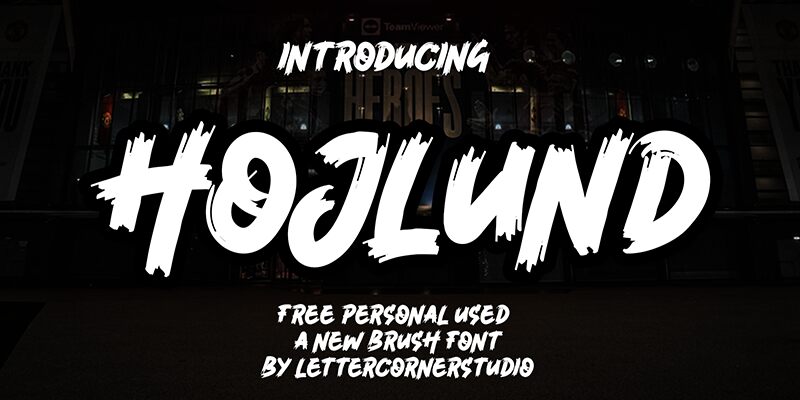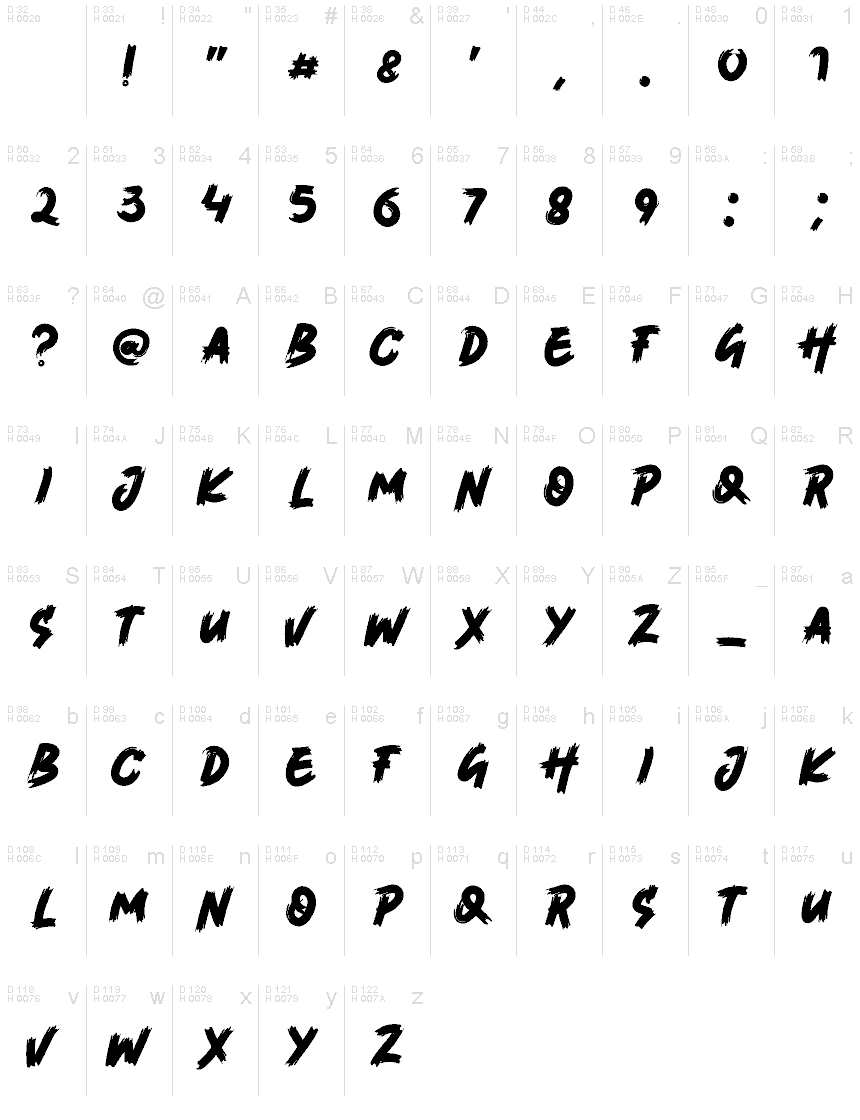
Hojlund
Hojlund font by Mocha Frappuccino is an expressive bold font with a brush-like appearance. Mixing casual and modern styles, it comes with a strong visual energy and a sleek artistic flair. All the roughness that a real marker leaves on paper gives this bad-boy its striking look making it quickly associate-able with strength, freedom, and individuality. This free brush font makes a well-suited partner to all your other typography while also giving any texts you write with it exceptionally high readability.
As Hojlund engages more eyes than any standard handwritten typeface could ever do, use it in eye-catching text-based designs such as album covers, sport-related printouts (posters / flyers), apparel branding, package designing (snack boxes / drink cans). The font is also highly suitable for the revolving menus in cafés & restaurants where menu items change quite regularly such as daily specials or seasonal dishes! If extreme sports were your topic of interest then use this wonderful member of display fonts inside online & offline promotions!